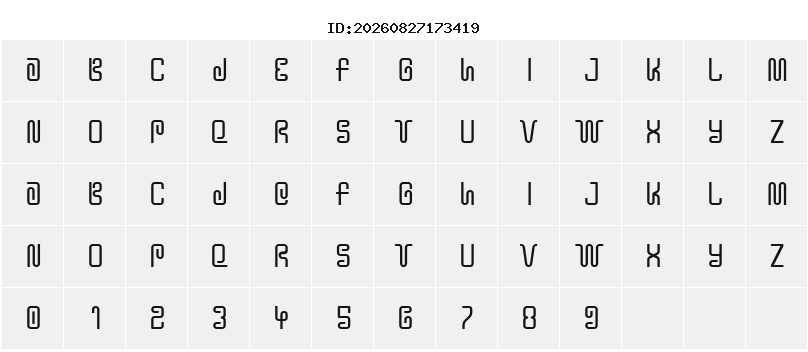
!Y2KBUG Preview
• Font Name: !Y2KBUG
• Full Font Name: !Y2KBUG
• Designer: Ray Larabie
• Manufacturer: Larabie Fonts
About !Y2KBUG.ttf
!Y2KBUG.ttf is a modern, elegant sans-serif font designed for ultimate readability and visual harmony. Perfect for branding, headlines, web design, and print materials.